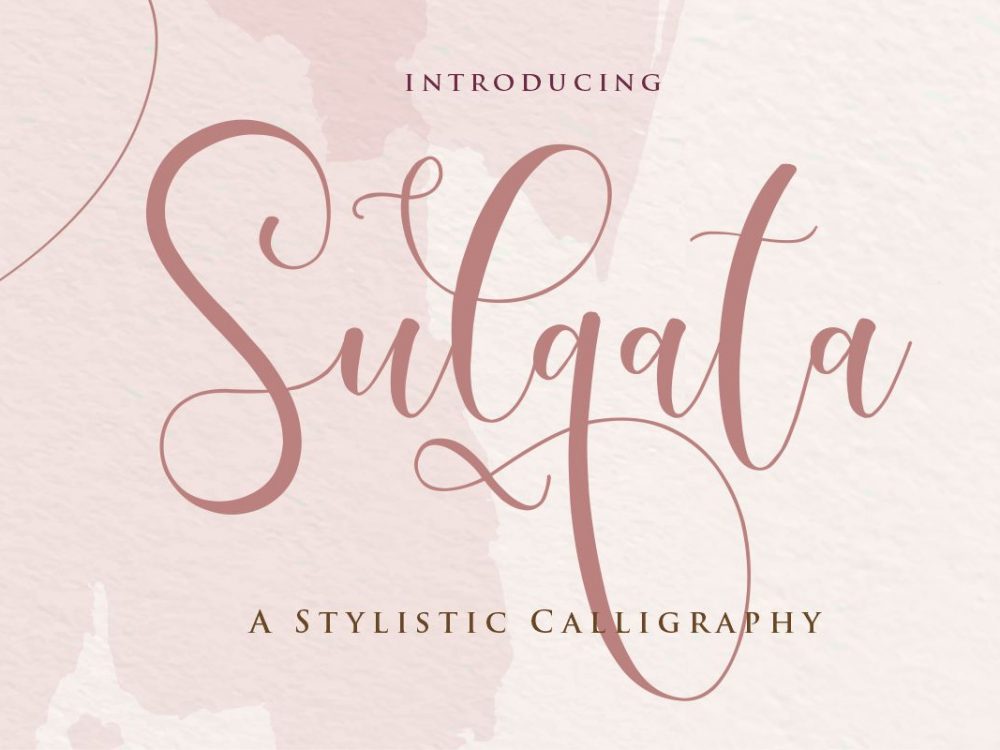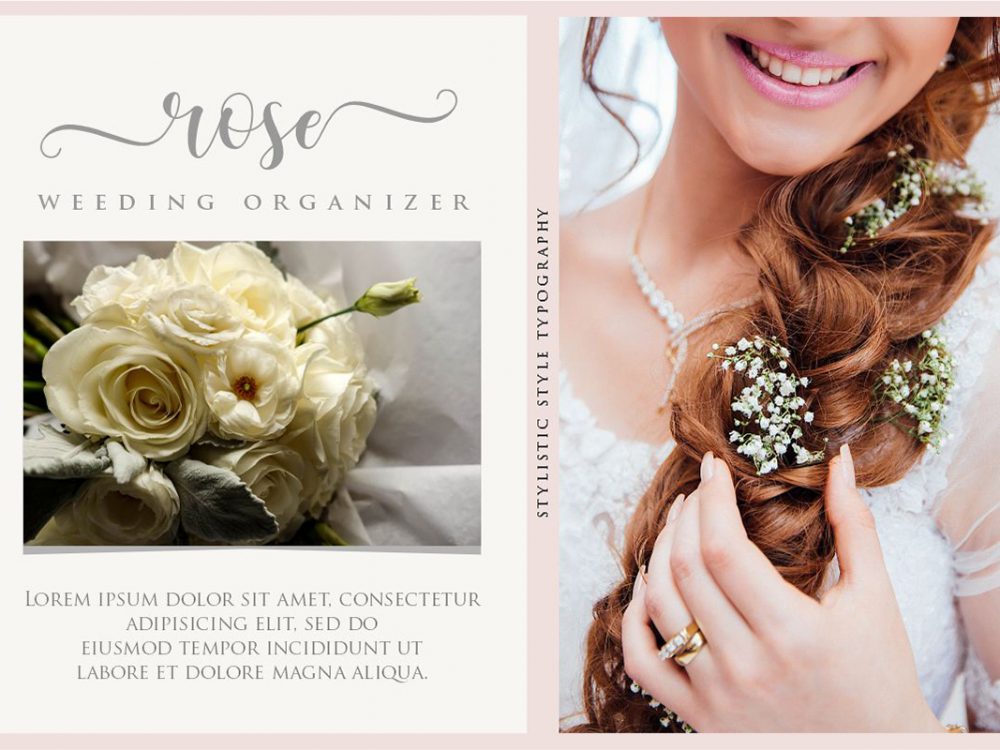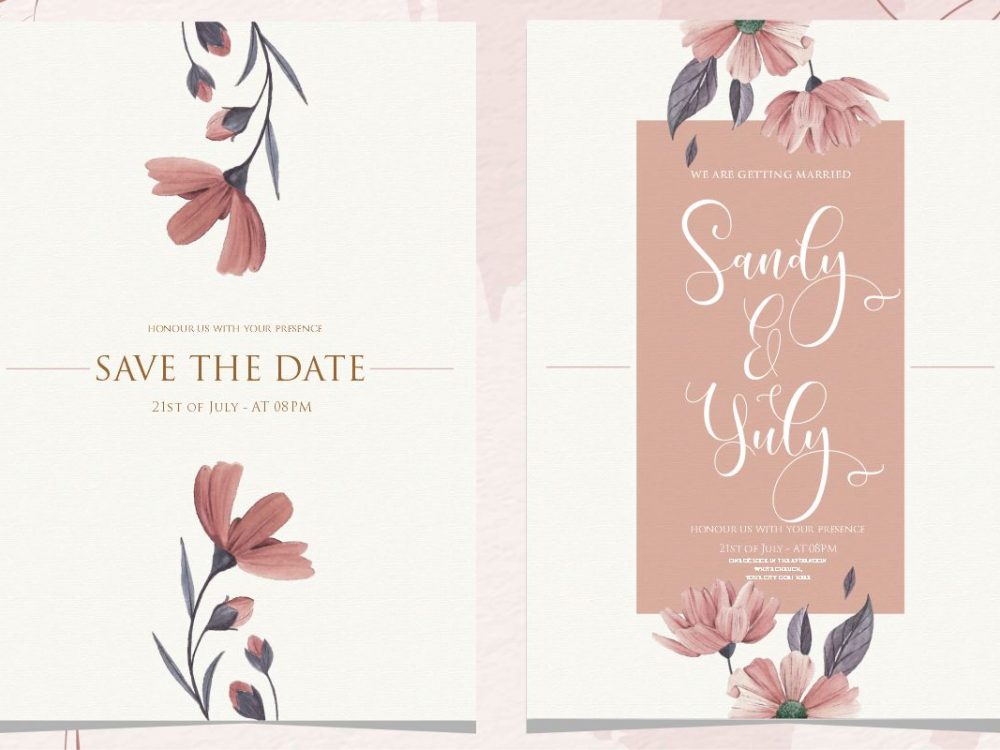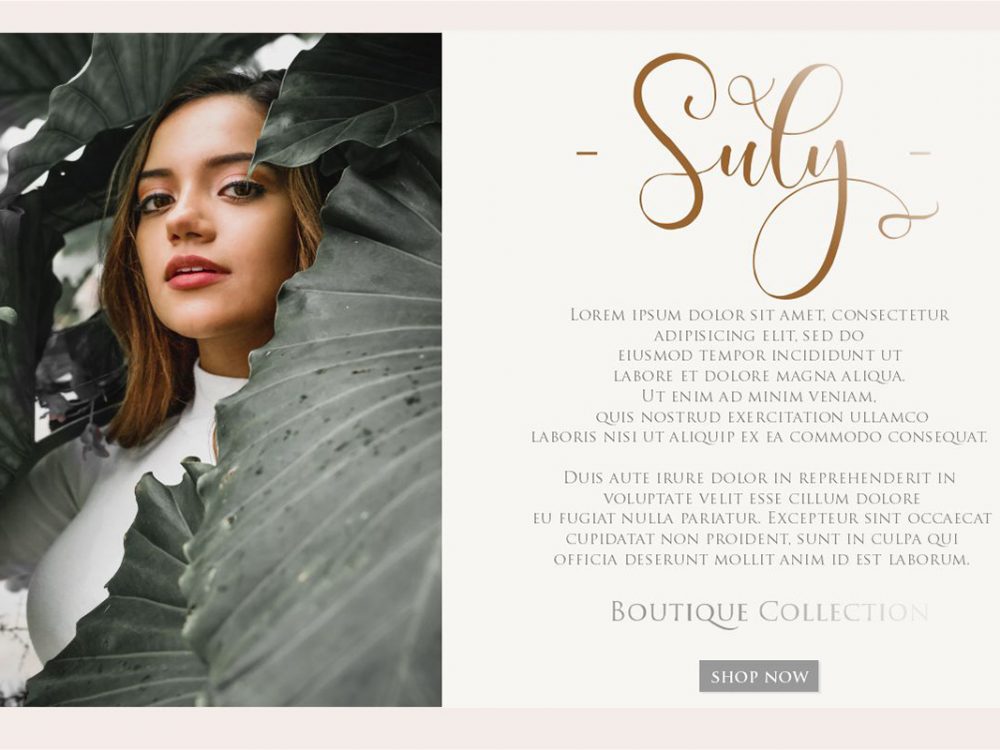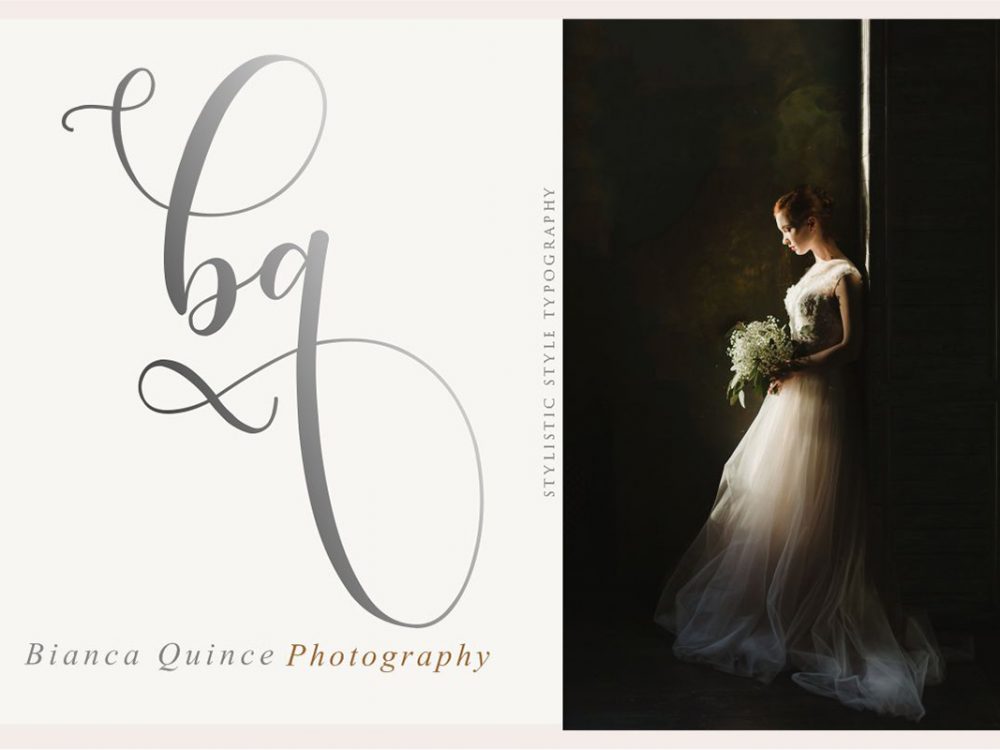
Sulqata Free Font
Sulqata Free Font is an interesting typeface with a modern calligraphic style. This font is well suited for creating various design projects that require a scripted font. You can use this font to create memorable romantic posters, wedding invitations, greeting cards, branding, flyers, t-shirt and pillow prints, and more. Improve the quality and increase the popularity of your design projects by using this font. If you like it don’t forget to check out the full version.